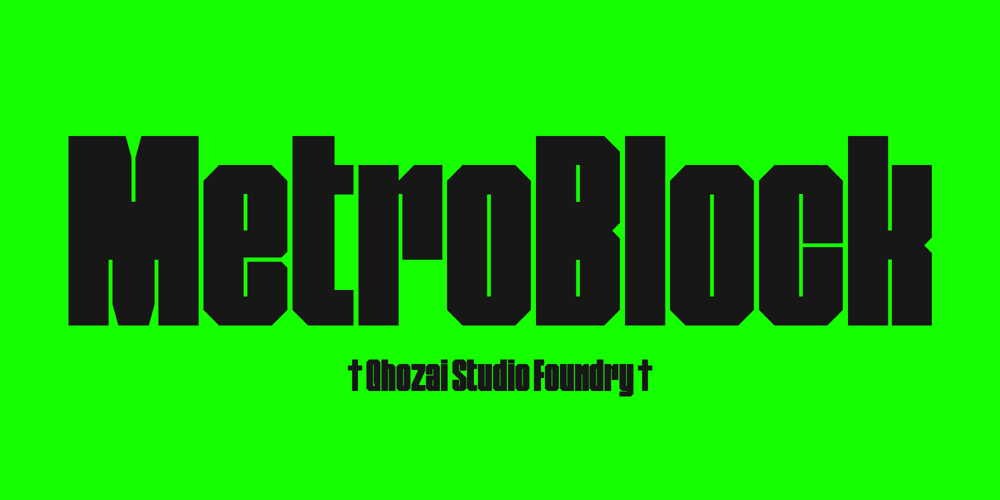
Metro Block Font Family was designed by Manzur Ghozaali and published by Ghozai Studio. Metro Block contains 16 styles and family package options. MetroBlock is the simple and bold display font for any of your projects. A bold appearance makes impactful typographic applications. Metroblock comes in 10 styles, with a wide range of styles ideal for sports, headlines, titles, signage, branding, and strong designs that require a big impact.